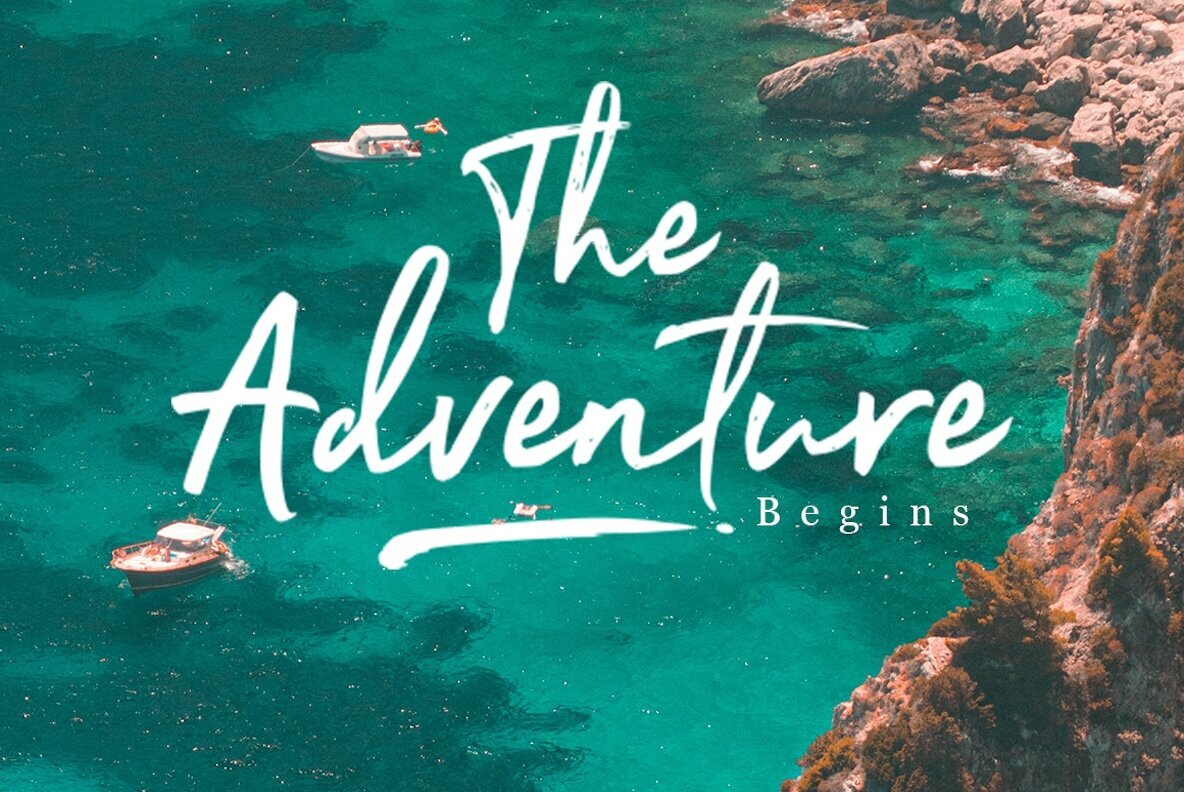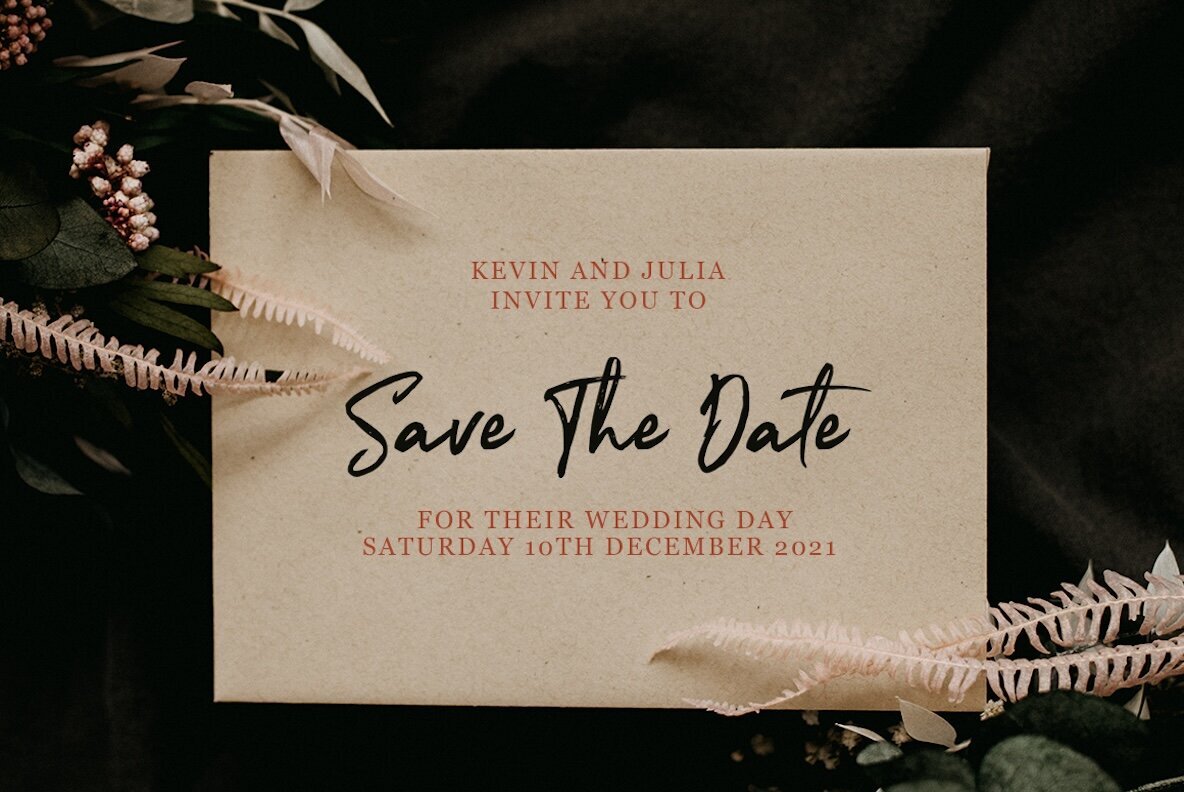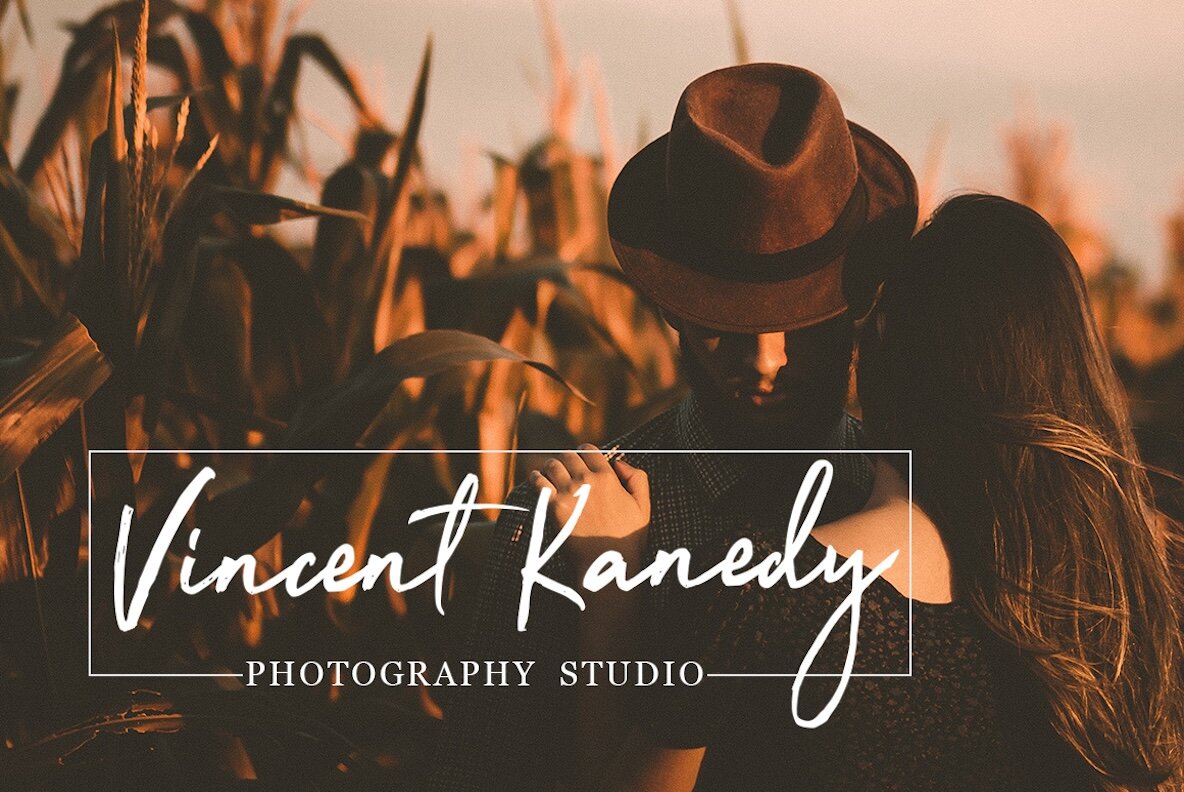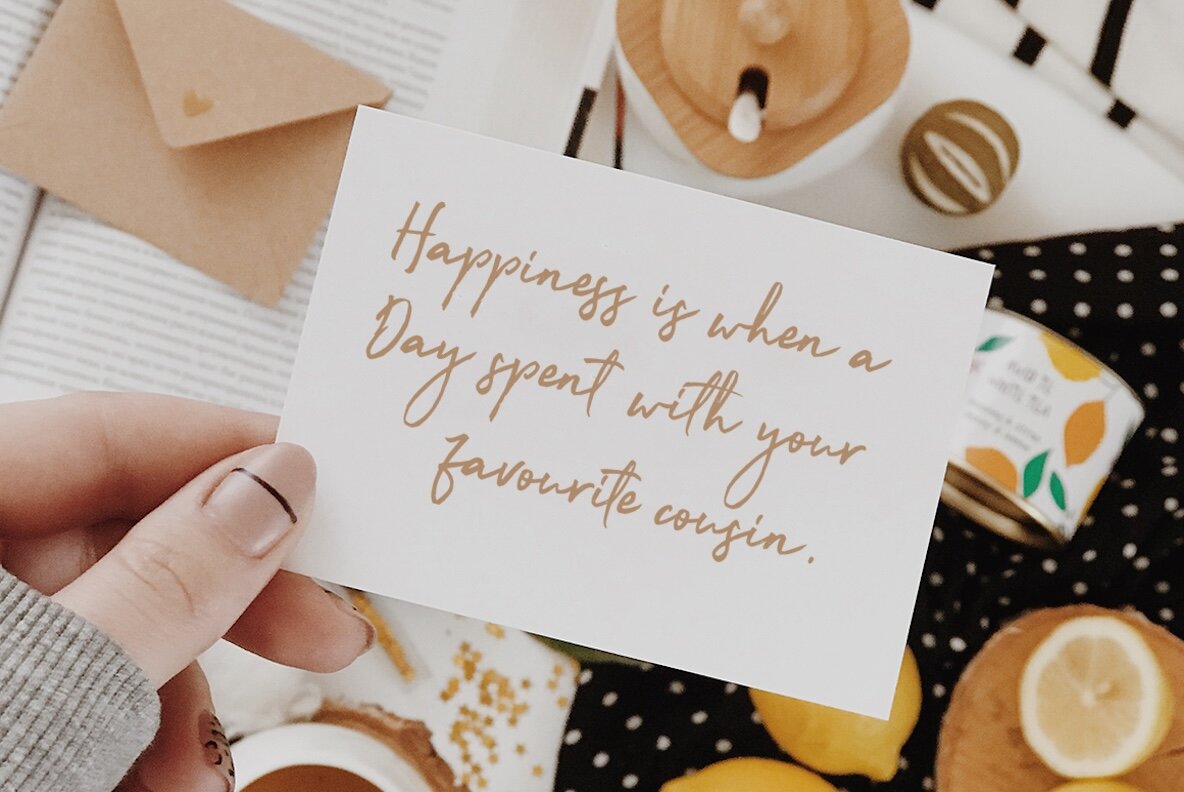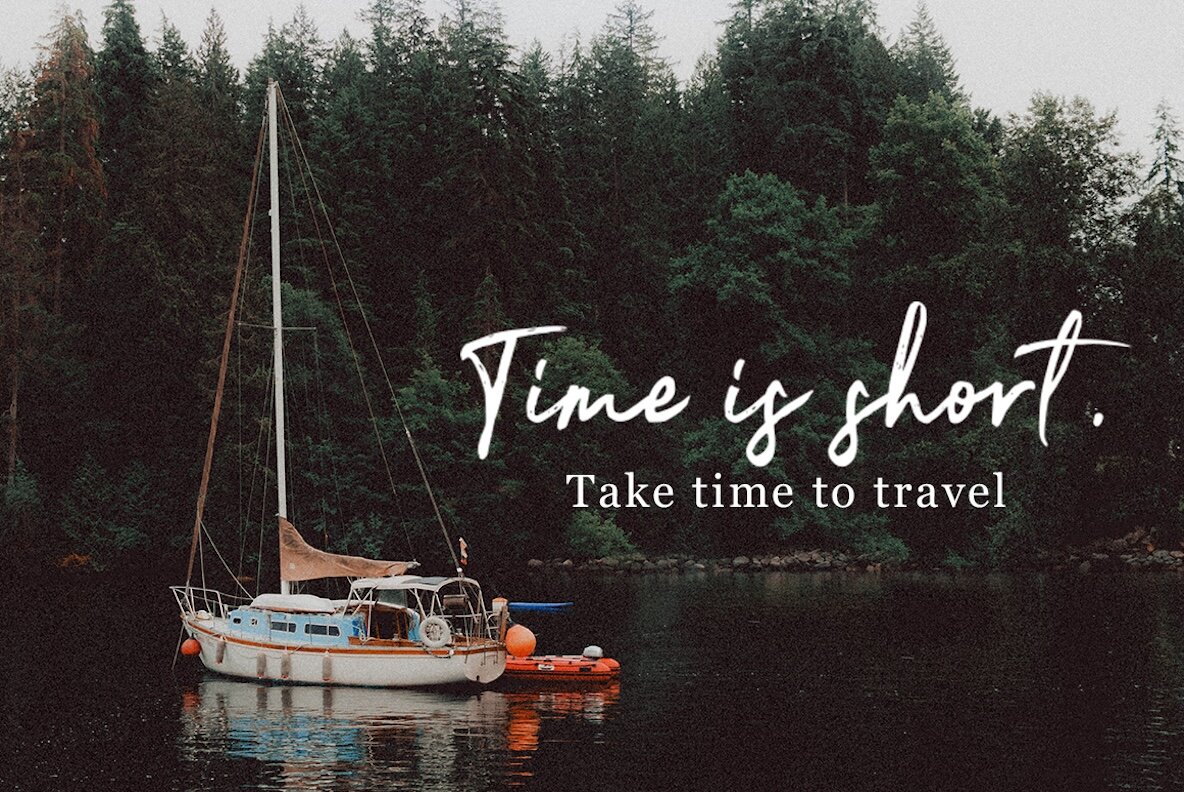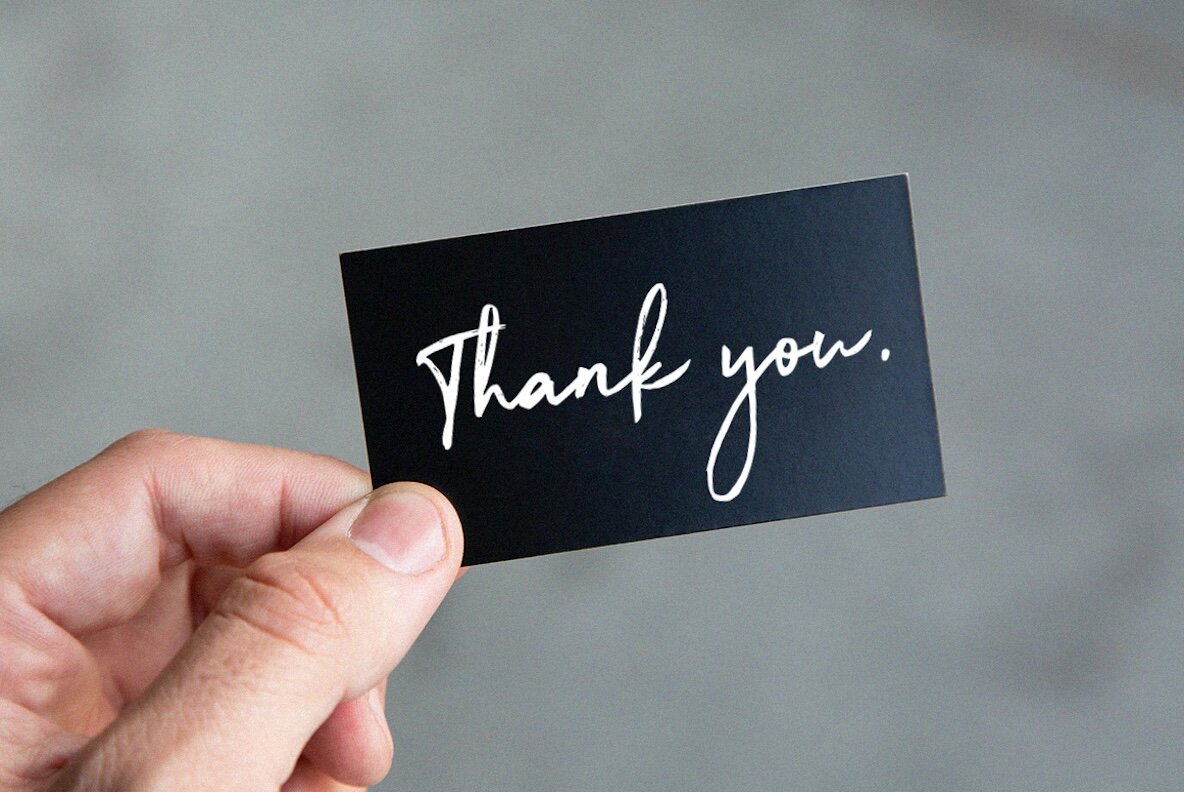
Wirophant Font
Wirophant offers modern font sets characterized by an organic, dynamic, and energetic style, suitable for a multitude of creative projects. This versatile font family is ideal for crafting titles, signatures, logos, correspondence, wedding invitations, letterheads, nameplates, labels, newsletters, posters, badges, and more.
Equipped with a full set of characters, Wirophant includes uppercase and lowercase letters, ligatures, punctuation, numbers, and multilingual support. To take advantage of the OpenType stylistic alternatives, you will need a program that supports OpenType features, such as Adobe Illustrator CS, Adobe Indesign, CorelDraw X6-X7, or Microsoft Word 2010 and later versions.